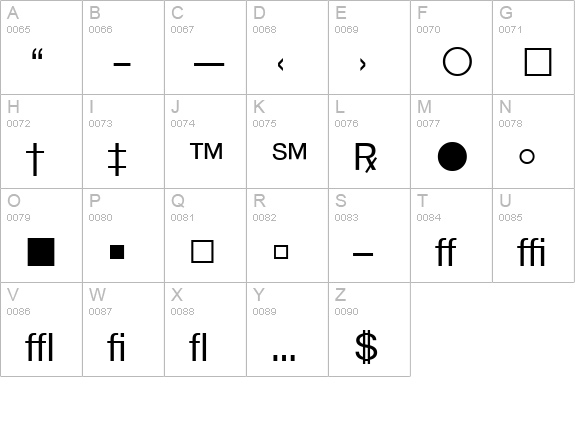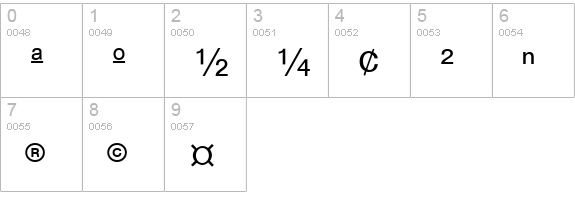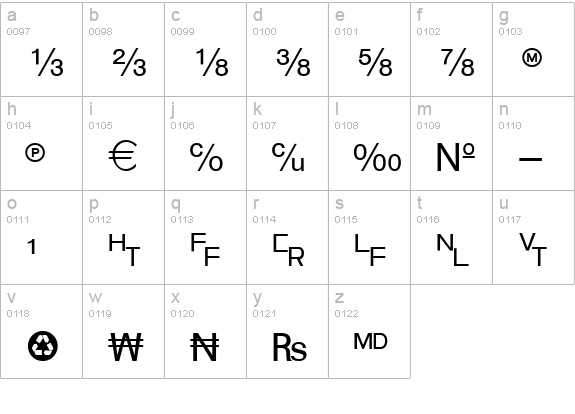
WP TypographicSymbols Font Details
Introducing WP TypographicSymbols, a remarkable font that will enhance your typographic creations like never before. With its extensive collection of beautifully designed symbols, this font is a must-have for any designer, typographer, or creative enthusiast. From arrows and shapes to currency symbols and mathematical operators, WP TypographicSymbols offers a wide range of meticulously crafted elements that will add depth, clarity, and visual interest to your projects. Whether you're designing a logo, creating a poster, or simply want to spice up your social media posts, this font provides the perfect solution. But what makes WP TypographicSymbols truly exceptional is that it is available for free! Yes, you read that right. This incredible font, featuring an array of captivating symbols, is freely available to download at FontsMarket.com. No need to worry about breaking the bank or compromising on quality – WP TypographicSymbols brings you both without any cost. With its seamless compatibility with various design software and operating systems, WP TypographicSymbols is incredibly versatile. It allows you to effortlessly incorporate these stunning symbols into your design projects, unleashing your creativity and taking your typographic compositions to new heights. Whether you're a professional designer or someone who simply appreciates exceptional typography, WP TypographicSymbols is an invaluable addition to your font library. Incorporate these eye-catching symbols into your designs, and watch as they elevate your work to a whole new level. Download WP TypographicSymbols for free today at FontsMarket.com and unlock endless possibilities in your typographic endeavors. Don't miss out on this incredible opportunity to enhance your designs with this remarkable font – the world of typography is at your fingertips.